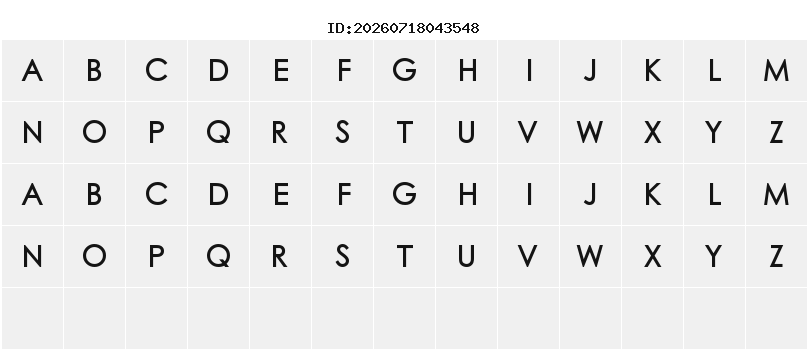
Chub Gothic Preview
About Chub Gothic.ttf
Chub Gothic.ttf is a modern, elegant sans-serif font designed for ultimate readability and visual harmony. Perfect for branding, headlines, web design, and print materials.